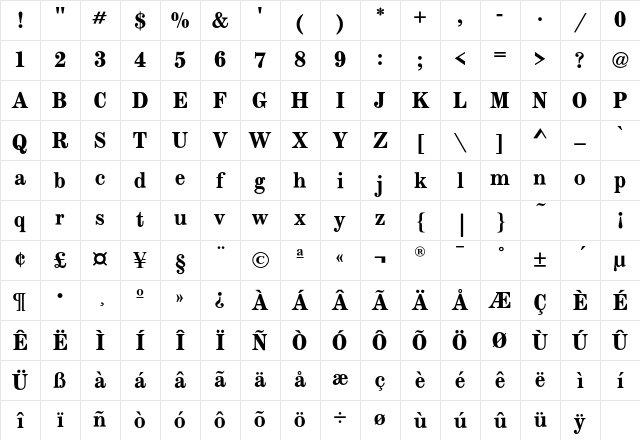
Complete ModernExtendedEF Bold glyph index. Displaying only characters natively supported by ModernExtendedEF Bold font.
ModernExtendedEF is a composed and adaptable typeface that performs quietly and consistently across a wide range of design contexts. Its bold stroke weight gives it real presence on the page.